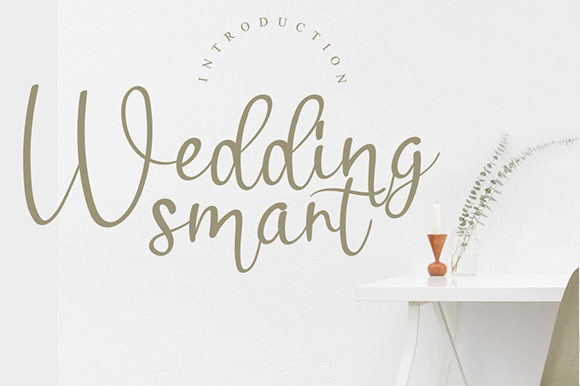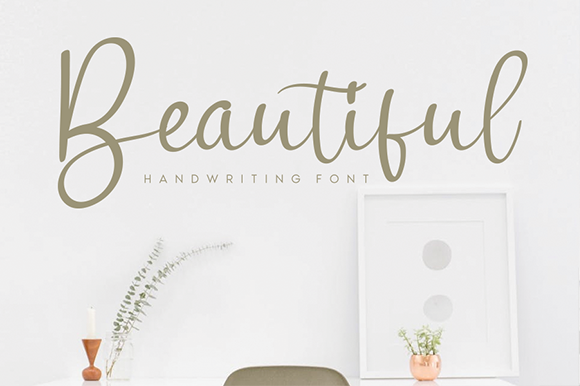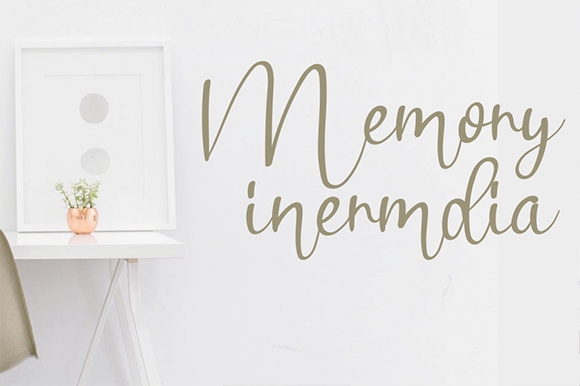
Introduction to Bronahia Font
Bronahia is a unique, round lettered handwritten font.
Masterfully designed to become a true favorite, Bronahia maintains its classy calligraphic influences while feeling contemporary and fresh Fall in love with this font and bring your projects to the highest levels.